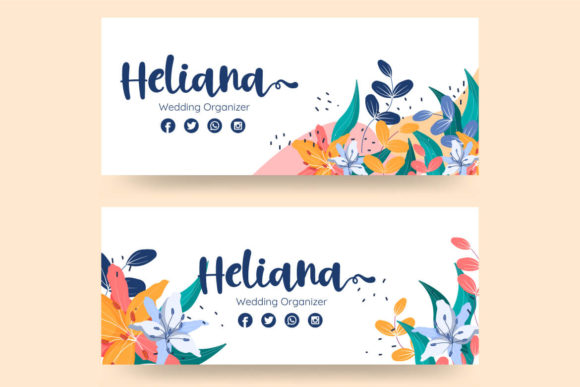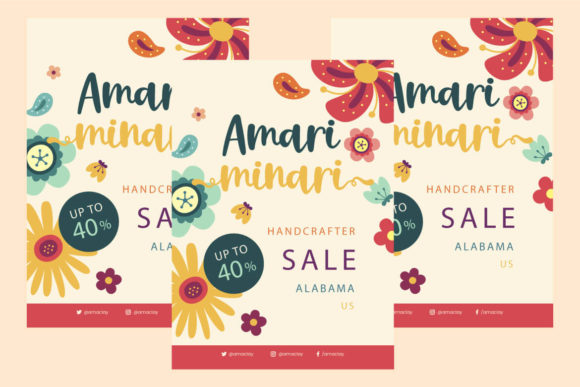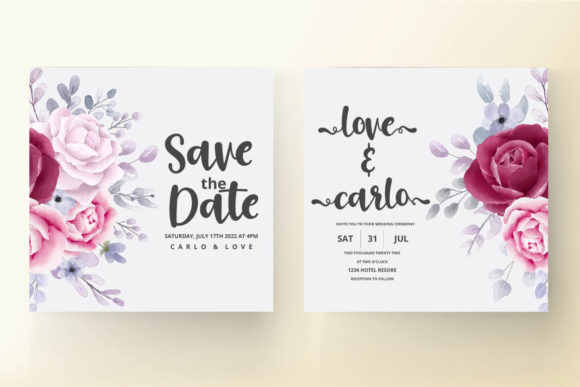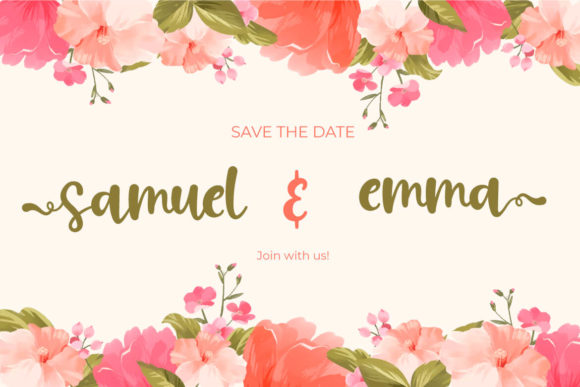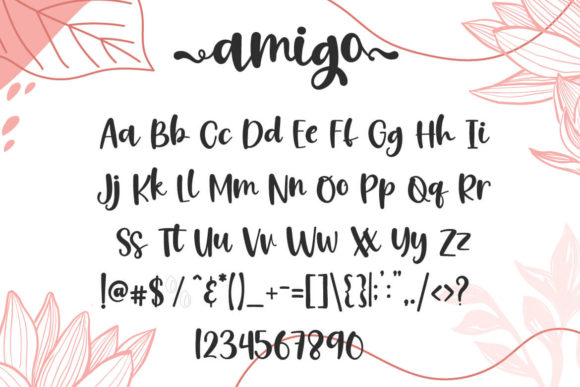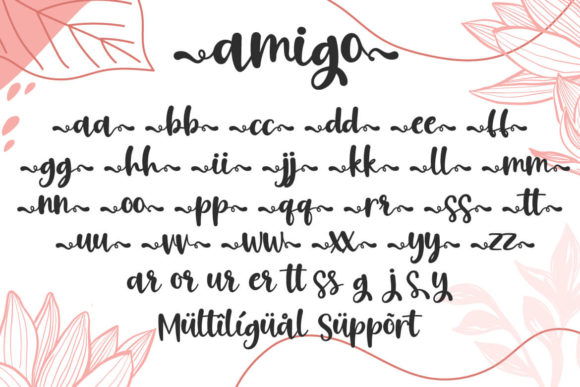
Introducing Amigo Font: Elevate Your Designs with Elegance and Timeless Style
Are you on the hunt for a font that adds a touch of elegance and sophistication to your projects? Look no further than Amigo Font, a stunning flowing handwritten font that is sure to capture your heart. With its incredibly distinct and timeless style, Amigo Font is the perfect choice for designers and crafters looking to create spectacular designs that stand out from the crowd.
The Charm of Amigo Font
Amigo Font boasts an elegant touch that sets it apart from other fonts. Its flowing handwritten style is reminiscent of classic calligraphy, yet it has a modern twist that makes it perfect for contemporary designs. The font’s unique character is sure to add a touch of personality to any project, whether you’re working on a logo, branding materials, or digital content.
Key Features of Amigo Font
- PUA Encoded: Amigo Font is PUA (Private Use Area) encoded, which means you can access all of the glyphs and swashes with ease. This feature makes it simple to use the font’s full range of characters, allowing you to create complex and beautiful designs.
- Distinct and Timeless Style: Amigo Font’s style is both distinct and timeless, making it perfect for projects that require a classic yet modern look. The font’s elegance and sophistication ensure that it will never go out of style.
- Elegant Touch: The font’s elegant touch is perfect for adding a touch of sophistication to your designs. Whether you’re working on a luxury brand or a creative project, Amigo Font is sure to impress.
Amigo Font is a versatile font that is perfect for a wide range of design projects. Whether you’re a designer, crafter, or DIY enthusiast, this font is sure to become a favorite in your collection. Here are just a few ways you can use Amigo Font:
- Logo Design: Use Amigo Font to create stunning logos that showcase your brand’s personality and style.
- Branding Materials: Add a touch of elegance to your branding materials, including business cards, letterheads, and packaging.
- Digital Content: Use Amigo Font to create beautiful digital content, including social media graphics, blog posts, and email newsletters.
- Crafting Projects: Amigo Font is perfect for crafters who love to create handmade projects, such as scrapbooking, card making, and DIY crafts.
Tips for Using Amigo Font
To get the most out of Amigo Font, here are a few tips to keep in mind:
- Experiment with Sizes: Amigo Font looks great in a variety of sizes, from large headings to smaller body text. Experiment with different sizes to find the perfect fit for your project.
- Play with Colors: The font’s elegant style looks great in a range of colors, from classic black and white to bold and bright colors. Experiment with different colors to find the perfect fit for your project.
- Mix and Match: Amigo Font pairs well with a range of other fonts. Experiment with mixing and matching different fonts to create a unique and interesting look.
Amigo Font is a stunning flowing handwritten font that is sure to elevate your designs with its elegant touch and timeless style. With its PUA encoding and range of glyphs and swashes, this font is perfect for designers and crafters looking to create spectacular designs. Whether you’re working on a logo, branding materials, or digital content, Amigo Font is sure to become a favorite in your collection.